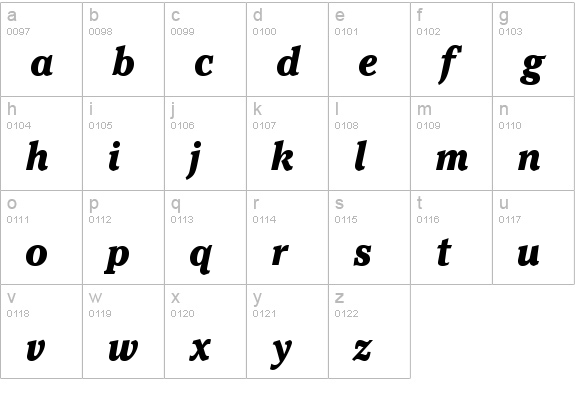
AT Pacella Black Italic Font Details
AT Pacella Black Italic is a maximum-weight, dramatic, italic variant in the AT typeface family \xE2\x80\x94 well suited to maximum-impact headlines, posters, and packaging.
AT Pacella Black Italic is a stunning and versatile font that exudes elegance and sophistication. With its bold and slanted design, this font is perfect for adding a touch of drama and flair to any project. Whether you're creating a poster, logo, or branding materials, AT Pacella Black Italic will make a bold statement. The font features strong, geometric shapes with a sleek italicized style that commands attention. Its high contrast between thick and thin strokes gives it a sense of dynamism and modernity. AT Pacella Black Italic is ideal for creating eye-catching headlines or emphasizing key elements in your designs. What's even better is that AT Pacella Black Italic is available for free download at FontsMarket.com. So you can easily access this striking font and elevate your projects with its unique and captivating look. Don't miss out on the opportunity to add AT Pacella Black Italic to your font collection and take your designs to the next level.